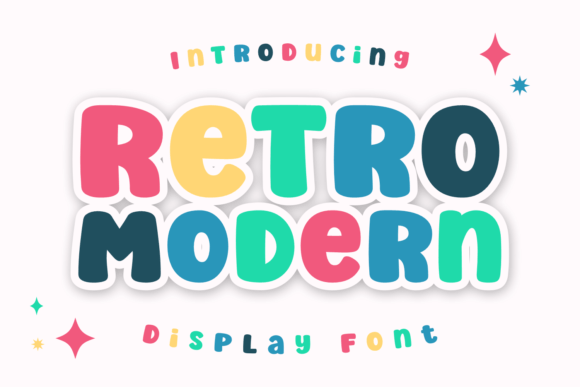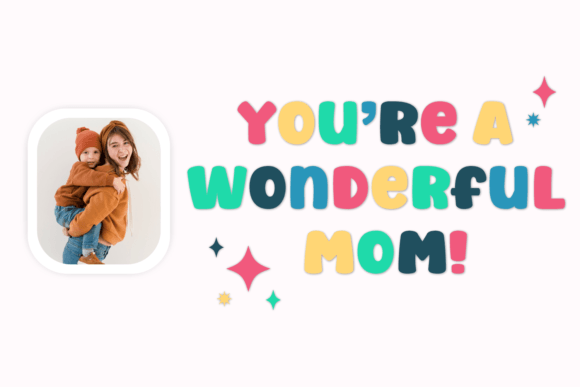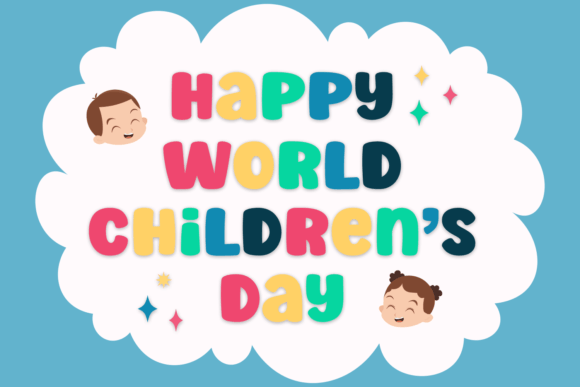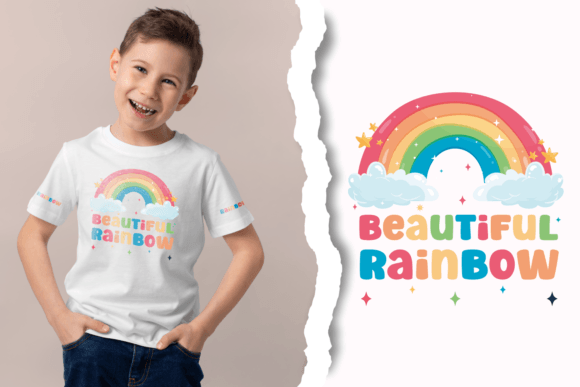
Retro Modern Font
About the Retro Modern Font
Meet Retro Modern Font, a stunning font that brings a touch of elegance and professionalism to any design. Retro Modern is a font that will make your design looks bold, modern, unique, and fun. Perfect as a playful kids’ font with cartoon style. This font is specially crafted for children, Kids, Boys, Kindergarten, Birthday, and Comic purposes. This is a fun & chunky display font. It’s a cute and amazing display font that will make children’s themed designs stand out!
Retro Modern’s playful, chunky style makes it ideal for headlines, logos for children’s products, posters, and packaging designs needing a bold, eye-catching presence. It’s less suitable for body text or UI elements due to its limited readability at smaller sizes.
Consider pairing Retro Modern with a clean sans-serif like Open Sans for body copy to provide contrast and readability. For a more playful feel, a rounded geometric sans-serif such as Poppins could also work well. Avoid pairing it with overly ornate or thin fonts which would diminish its impact.
The font exudes a cheerful, energetic personality, making it a strong choice for brands targeting young audiences or projects requiring a fun, friendly aesthetic.
Retro Modern Font Usage Examples
Retro Modern Font Example